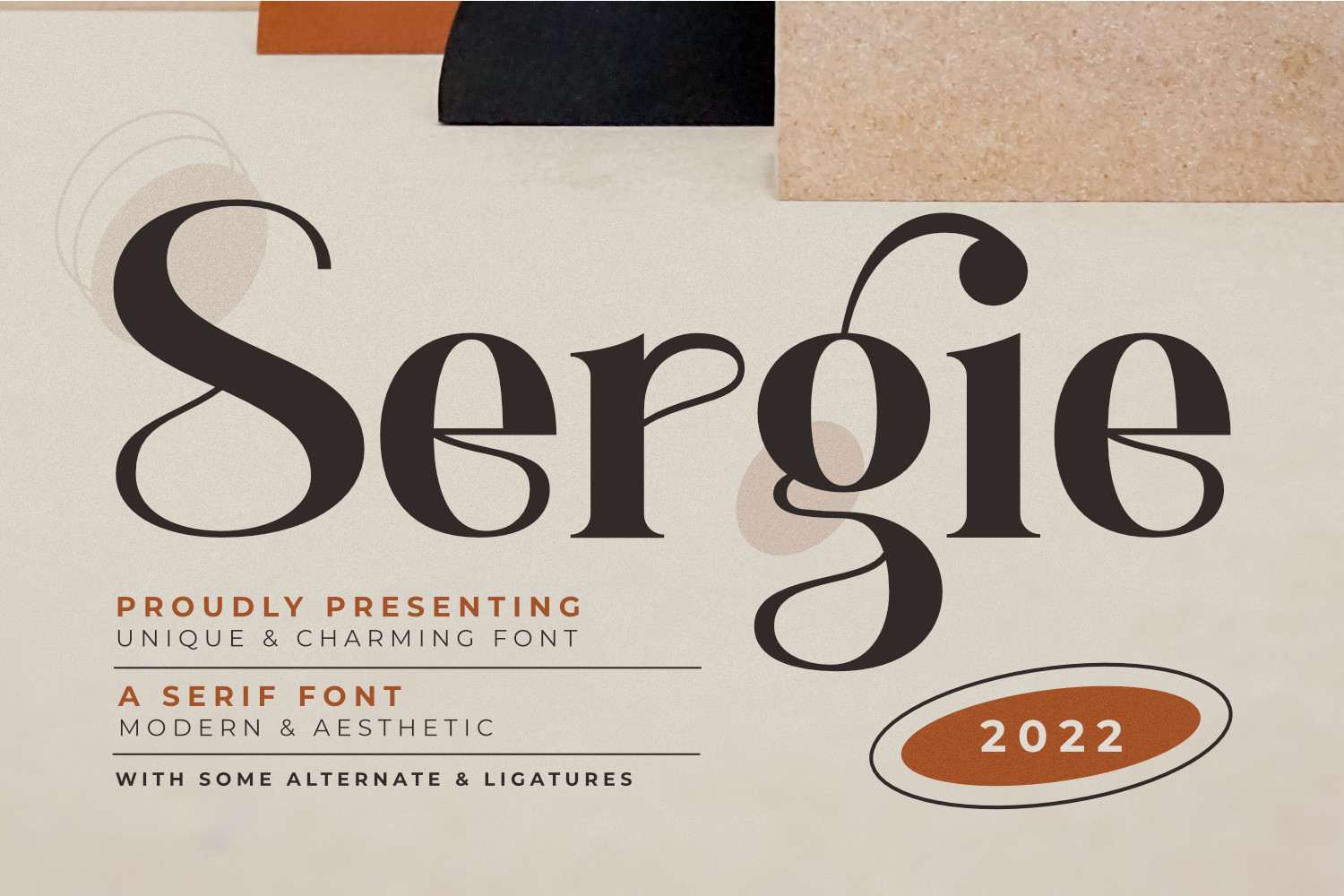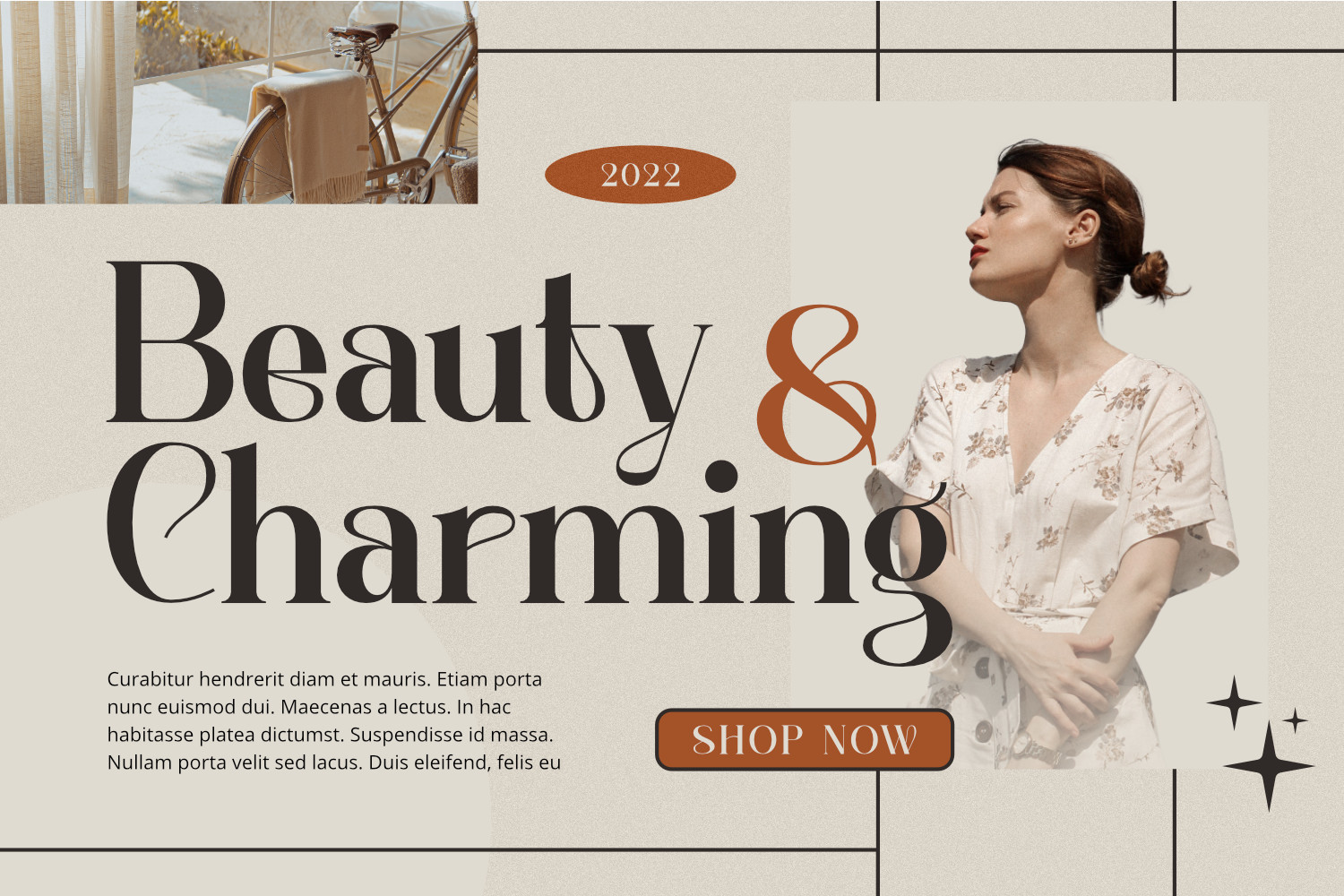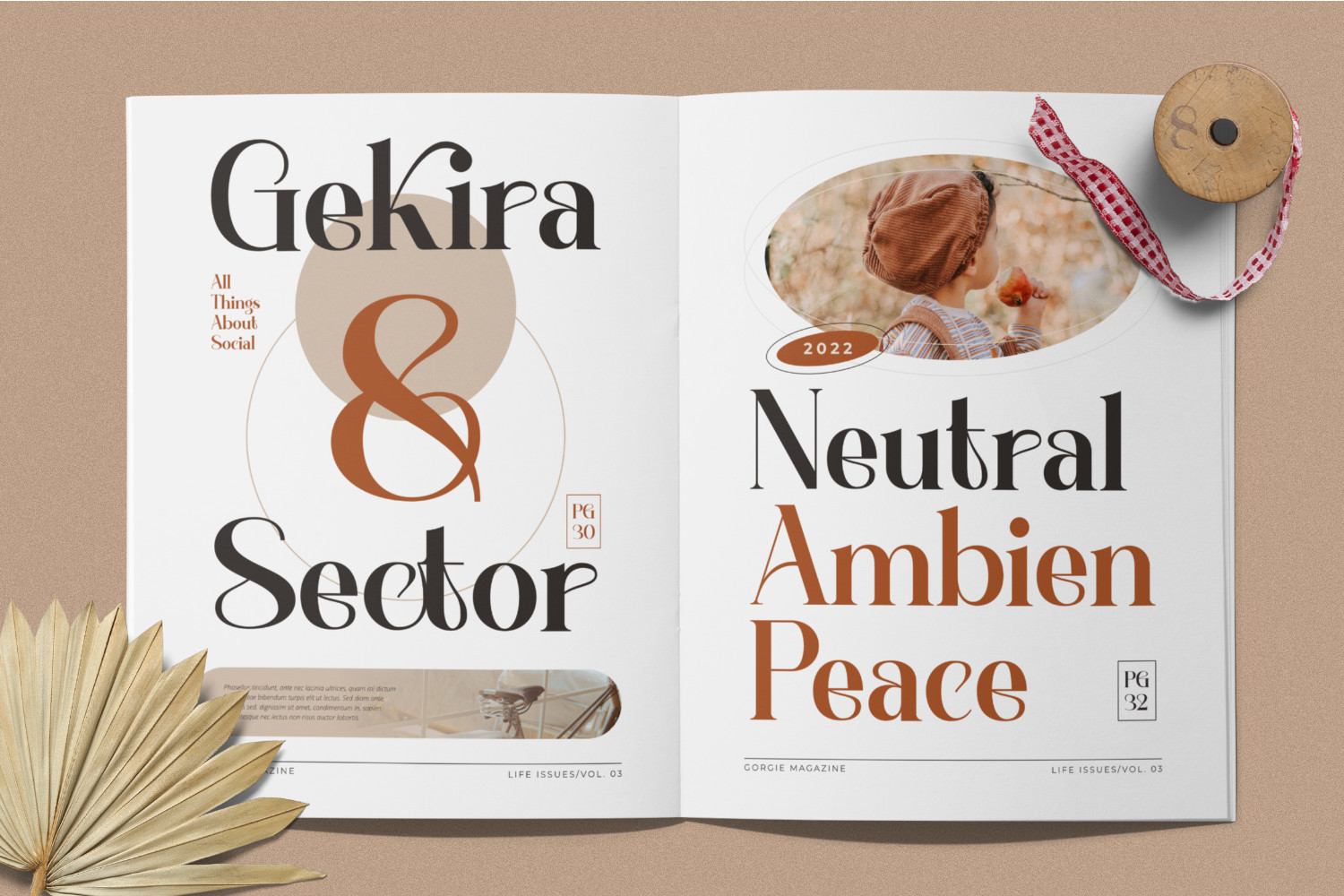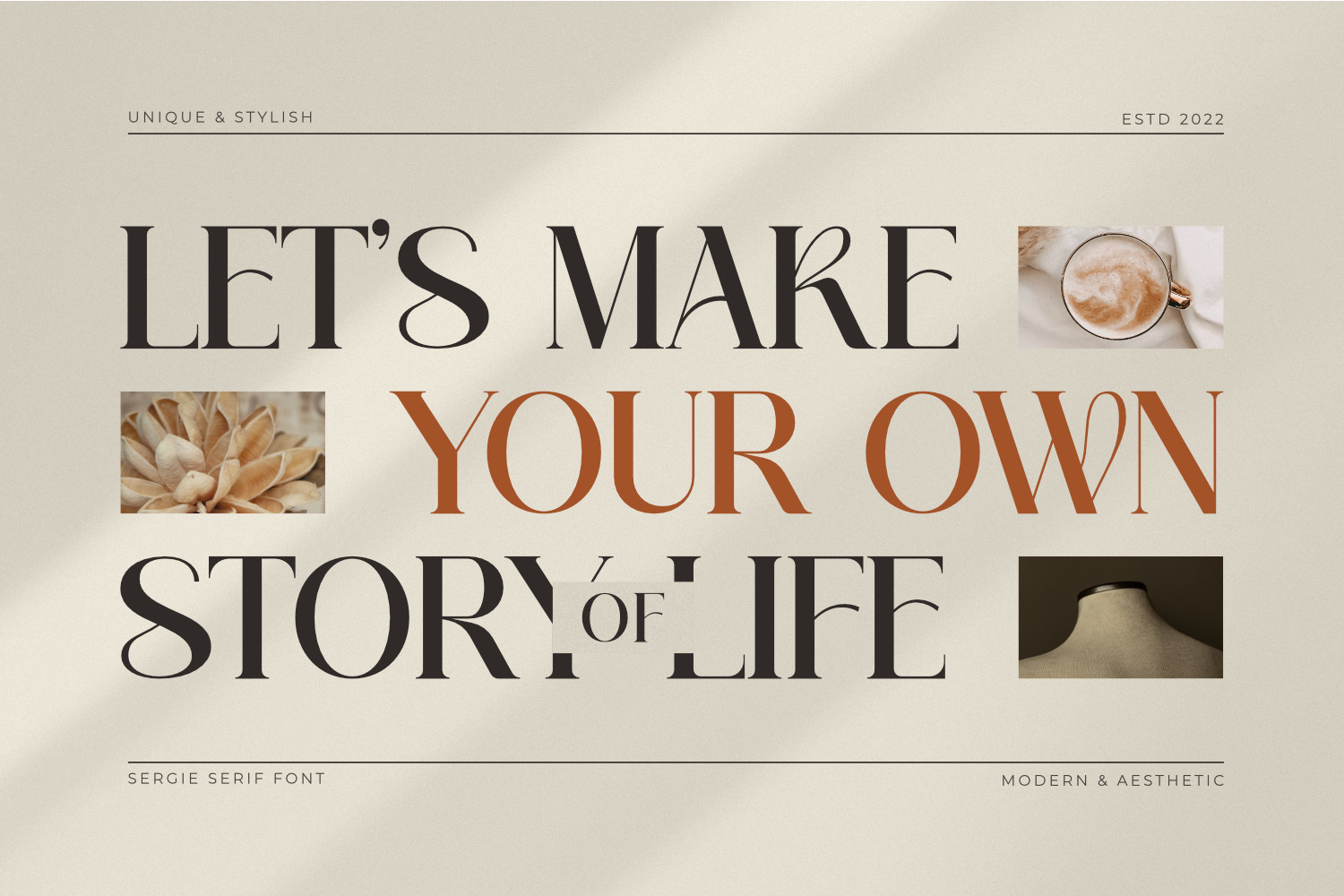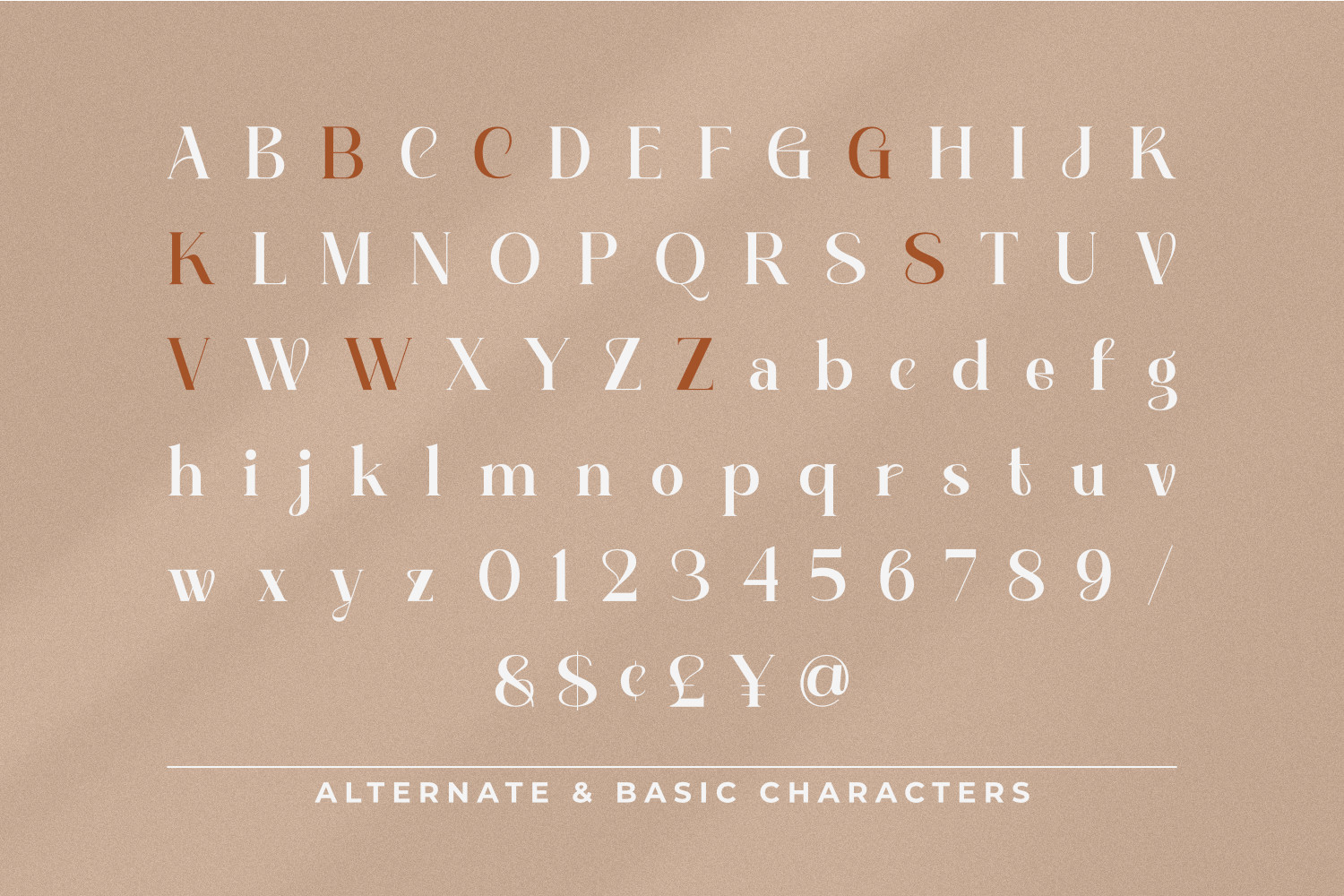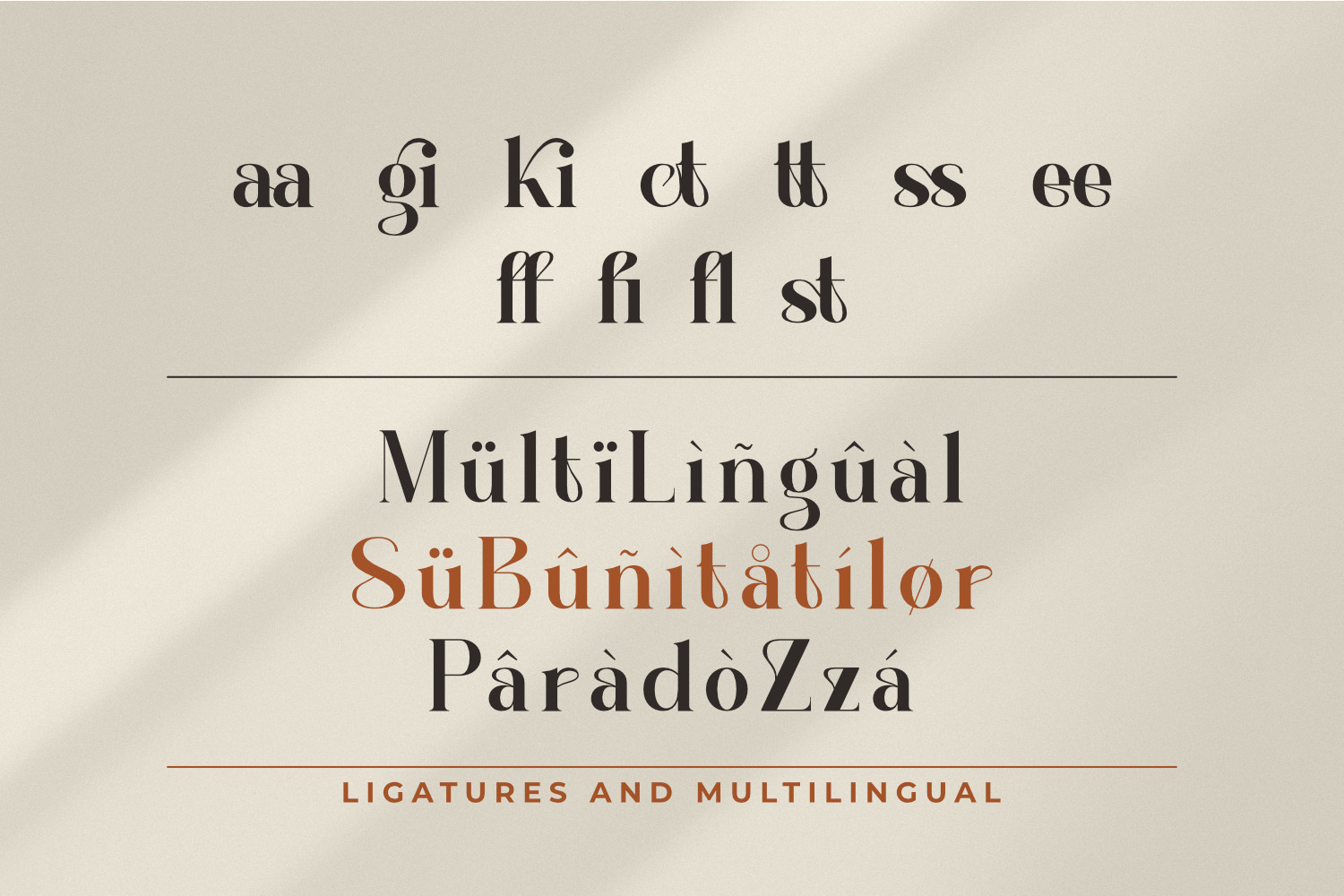
Sergie is a sophisticated serif font that blends classic elegance with a charming modern twist. Its unique letterforms feature graceful curves and fine contrasts, giving each character a sense of personality and flair. Sergie is designed with distinctive alternates and refined ligatures, making it an ideal choice for branding, fashion editorials, magazine titles, or luxury packaging.
The font’s aesthetic style is both stylish and versatile—balancing editorial elegance with whimsical charm. Whether you’re designing high-end marketing visuals or crafting expressive typographic layouts, Sergie enhances your message with character and confidence. This font supports multilingual characters and offers a comprehensive set of alternates for more creative freedom.